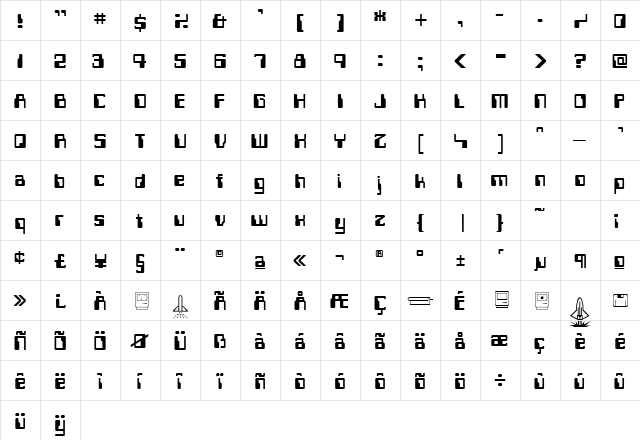
Computerfont Regular
Design Context for Computerfont Typeface
Computerfont offers clean, dependable letterforms without strong stylistic allegiance, making it a practical choice for designers who need flexibility.